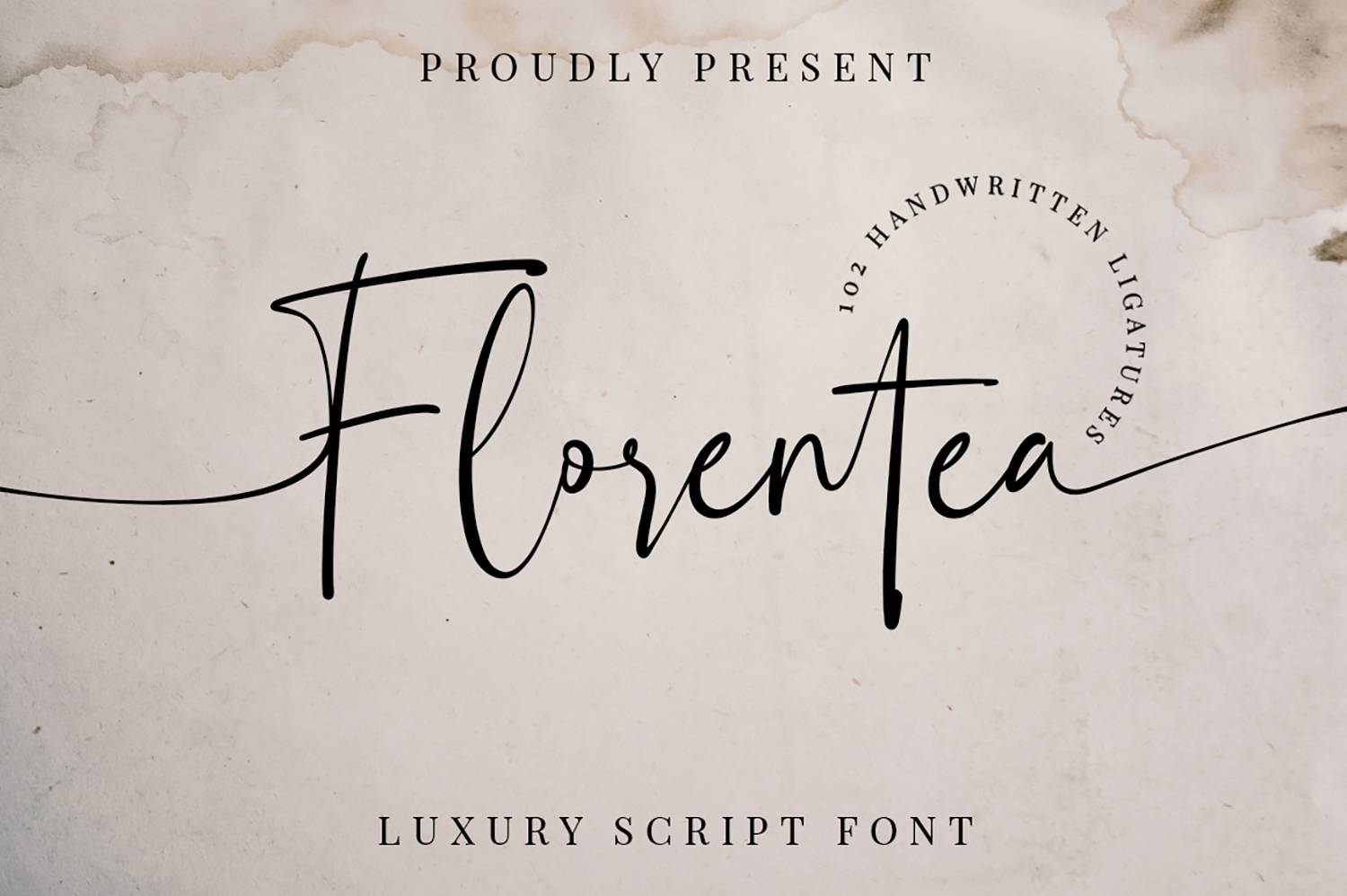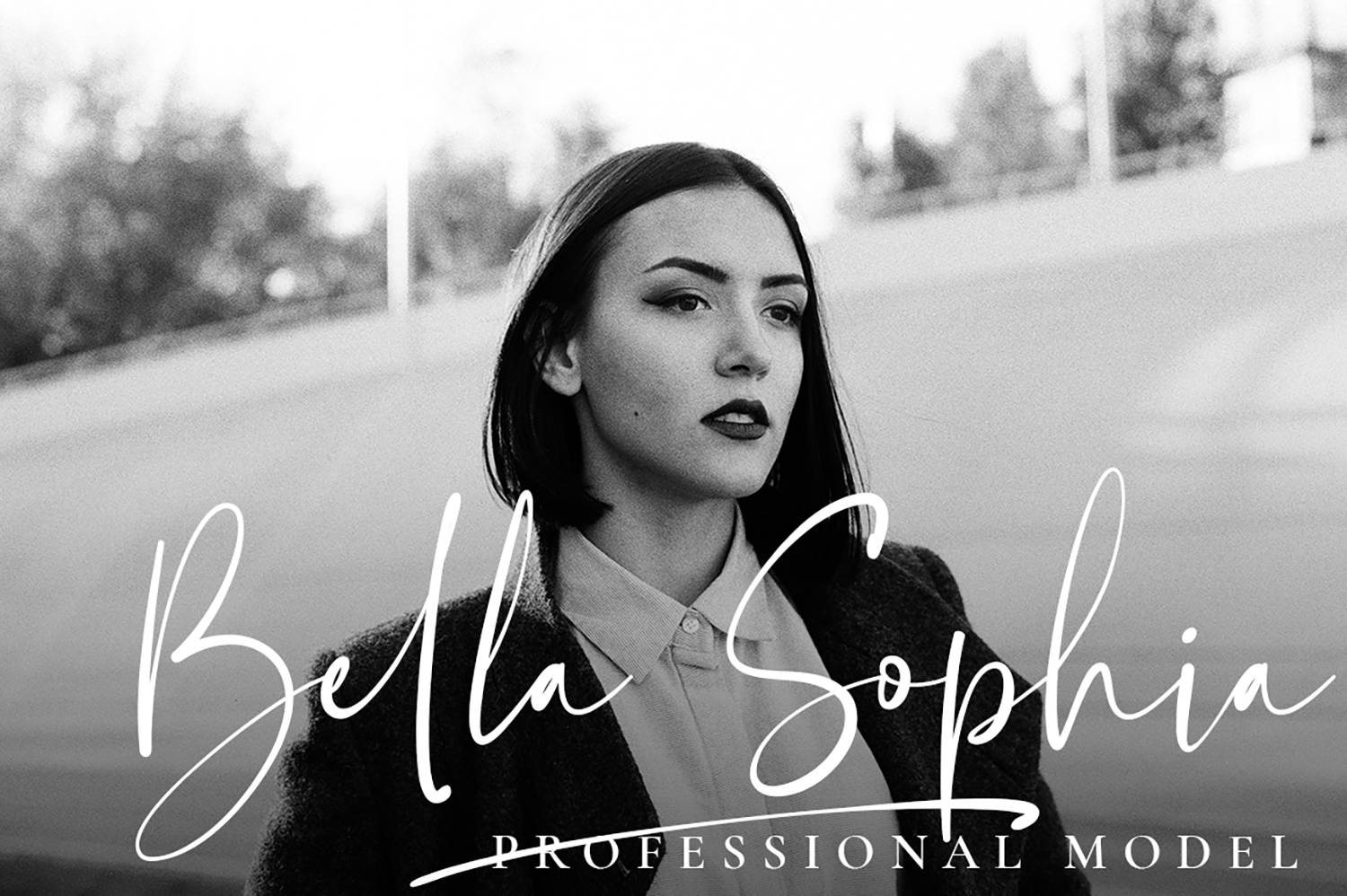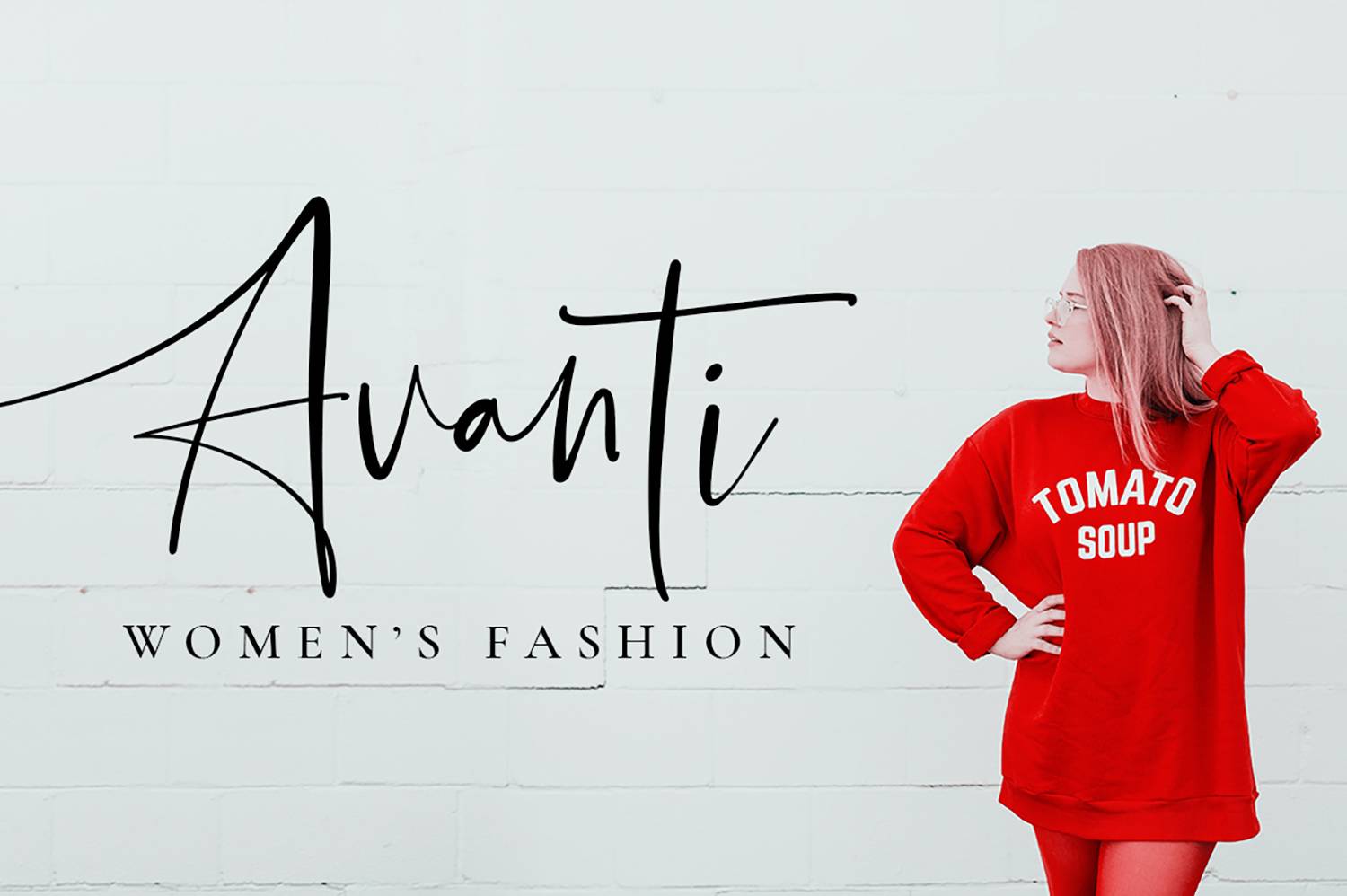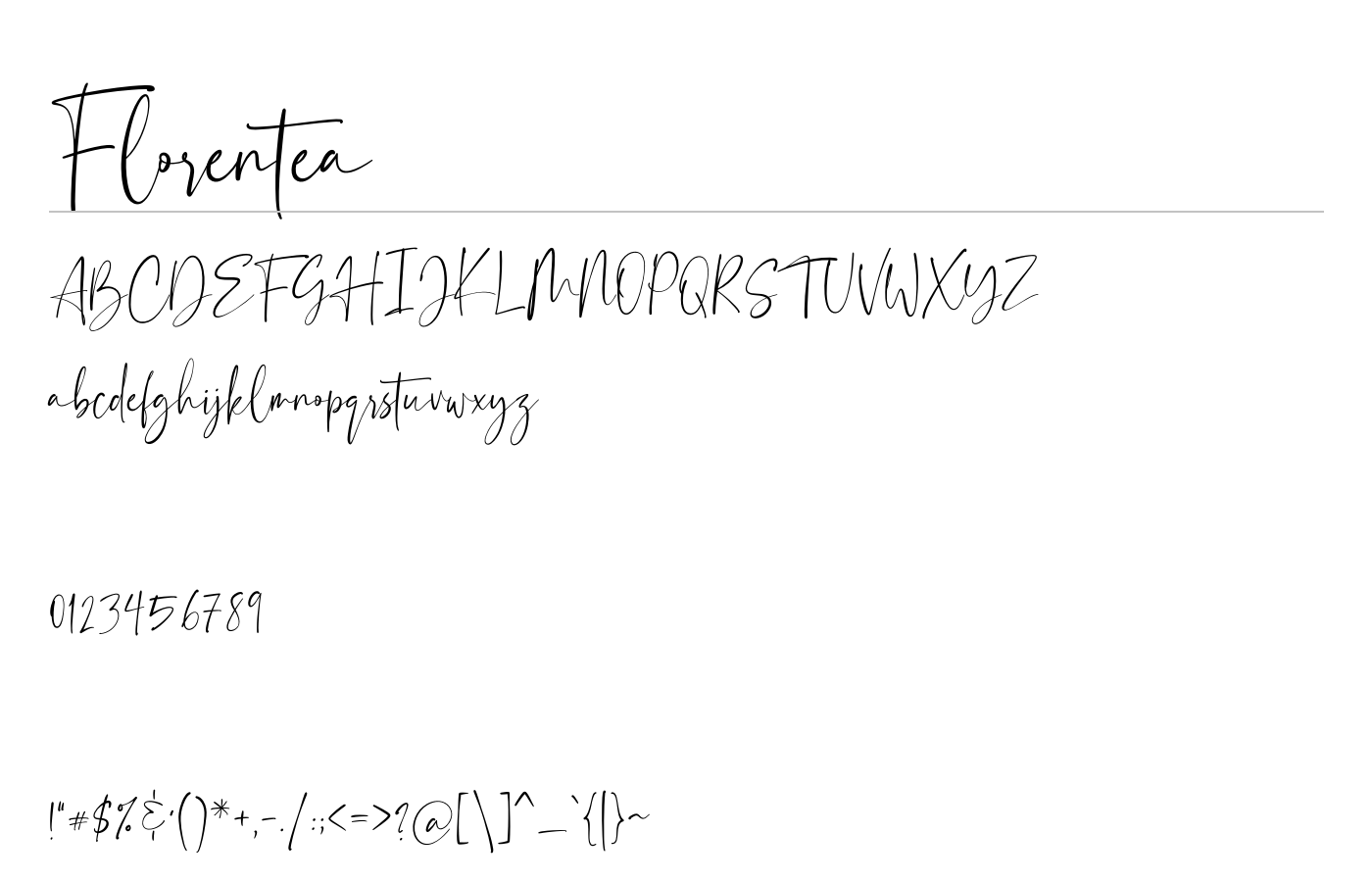
Florentea is a delicate, handwritten script font featuring thin, flowing strokes that create an elegant and airy feel. Its tall, narrow letterforms with subtle flourishes make it ideal for adding a personal, sophisticated touch to branding, invitations, and feminine-focused designs. This font works best in headlines or logos where a refined, artistic style can shine.
Florentea Font
About Florentea Font
| Font family | Florentea Font |
| Designer | Typesthetic Studio - Hamzah Muhamad Ihsan - Jakarta (INA) |